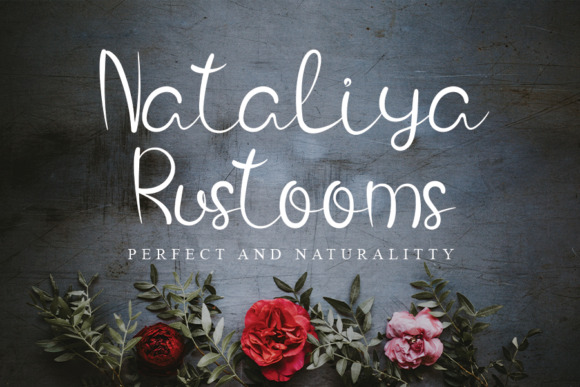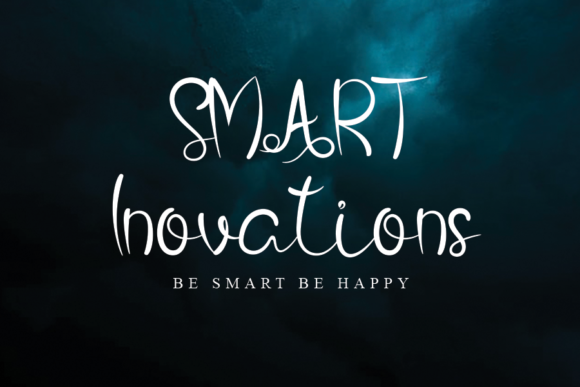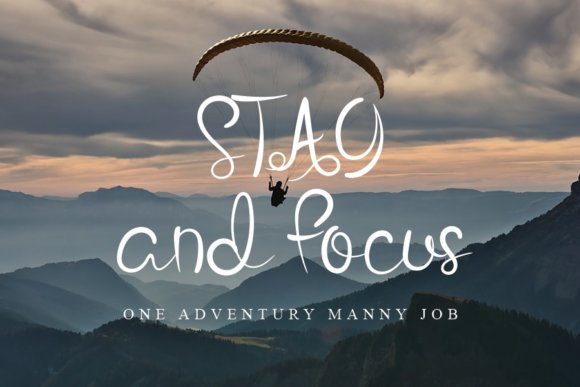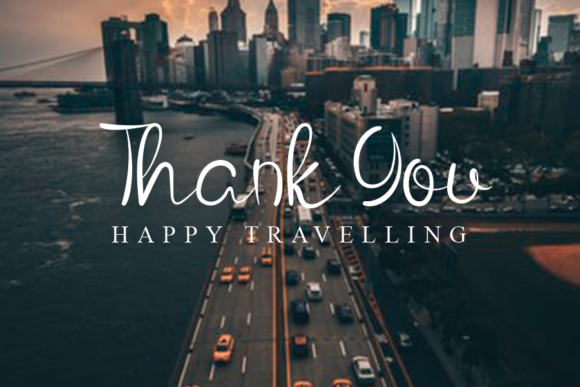
Romanttica Citty Font
About Romanttica Citty Font
Romanttica Citty is a cute and romantic font. It will elevate a wide range of design projects to the highest level, be it branding, headings, wedding designs, invitations, signatures, logos, labels, and much more!